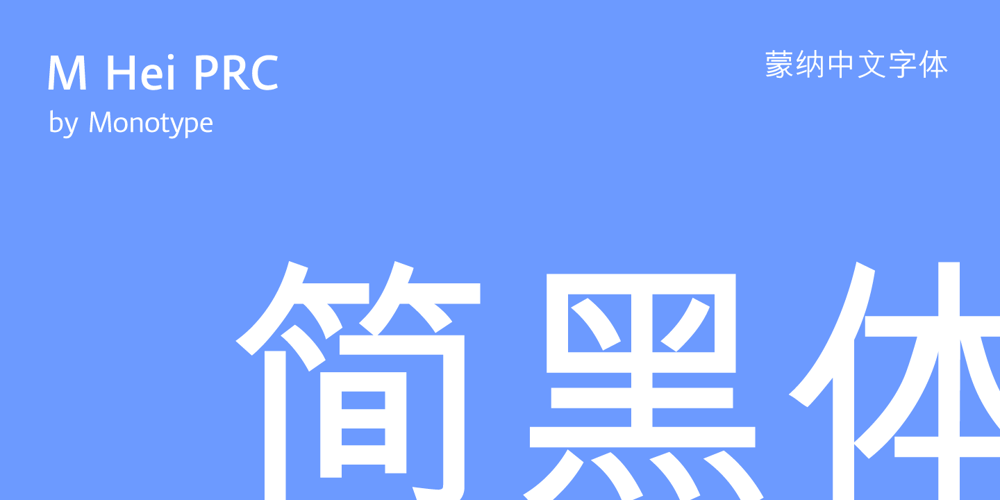
M Hei PRC
M Hei PRC font
M Hei PRC Font Family was designed by Monotype HK Design and published by Monotype HK. M Hei PRC contains 5 styles and family package options. Although traditional Heiti typefaces may not be as lively as Songti, the modesty of M Hei makes is enduring and stand out from other similar typefaces. M Hei’s design is based on the hallmarks of traditional Heiti typefaces: it has little to no thick-thin contrast in strokes and has square cut terminals. Its dots (點), ticks (剔) and downstrokes (撇、捺) are subtly curved and longer than usual; all stems (豎) and crossbars (橫) remain simple and clear; and hooks (勾) appear rounded. Together they make a harmonious form which is clean but pure, classy but contemporary.